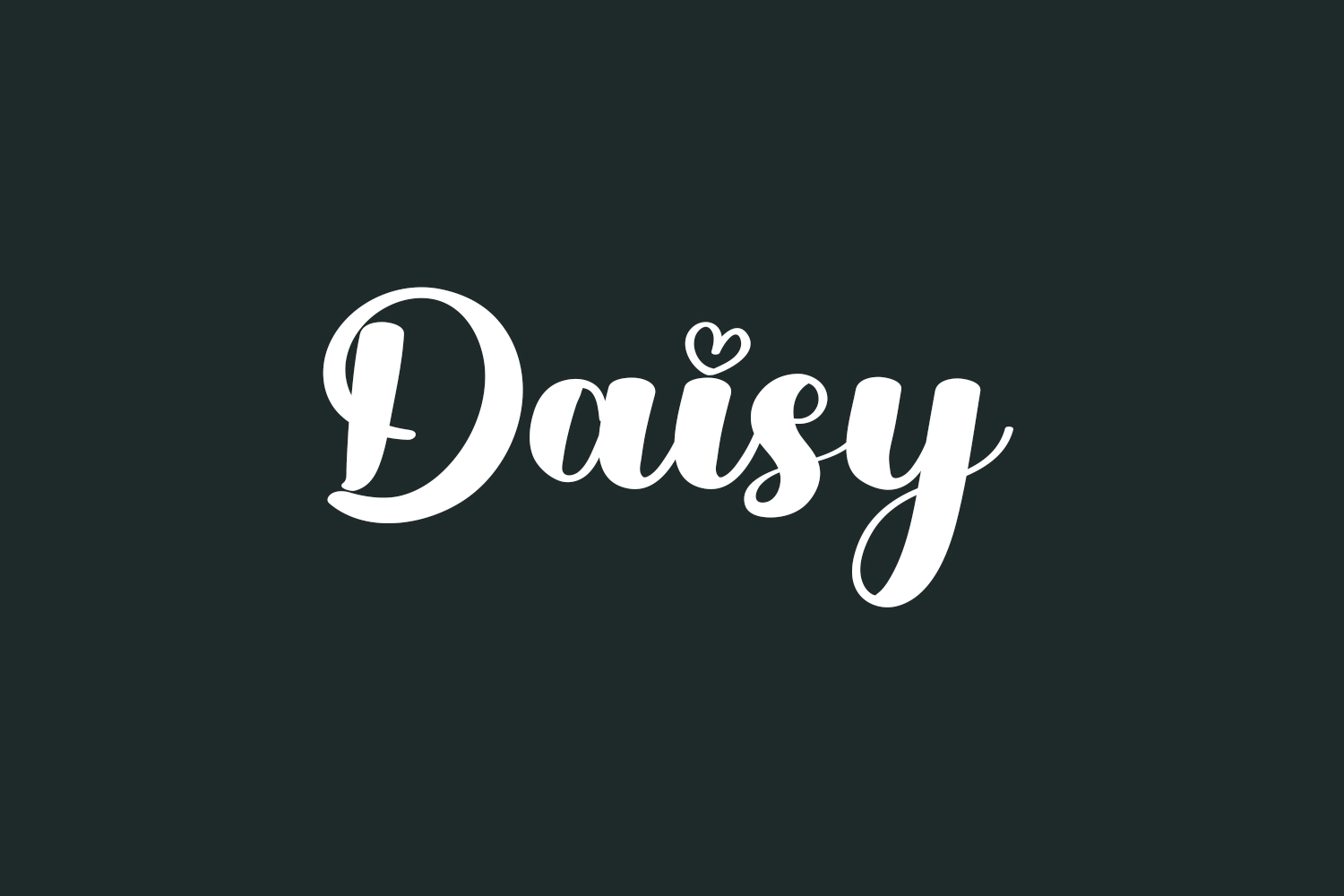
Daisy Free Font embodies a chic handwritten font featuring a modern ambiance and flawless structure, drawing inspiration from the timelessness of classic calligraphy. With its harmonious balance and delightful variability, this font is meticulously crafted to elevate and beautify your projects. Daisy Free Font is free for personal use only. Please purchase the full version for commercial use.